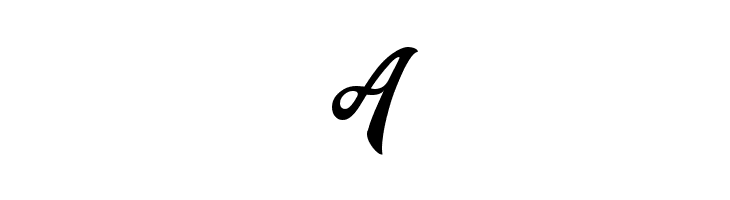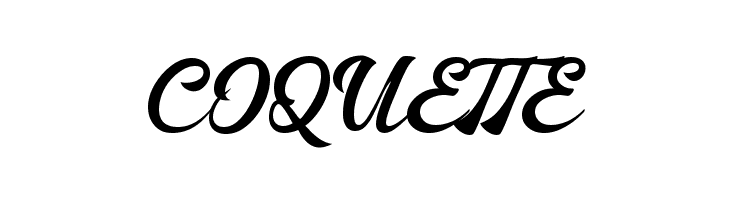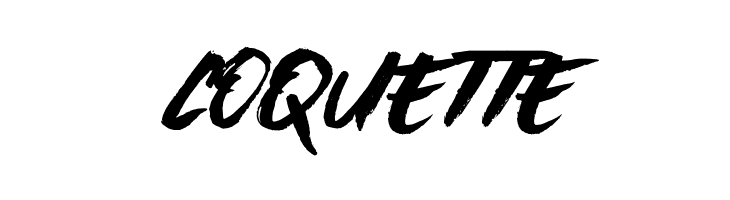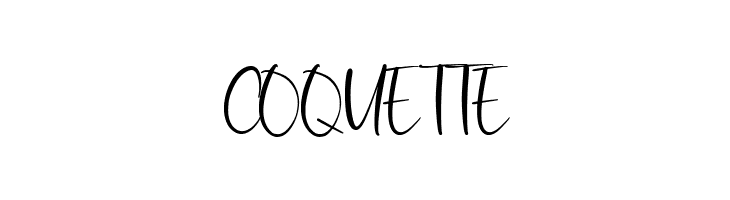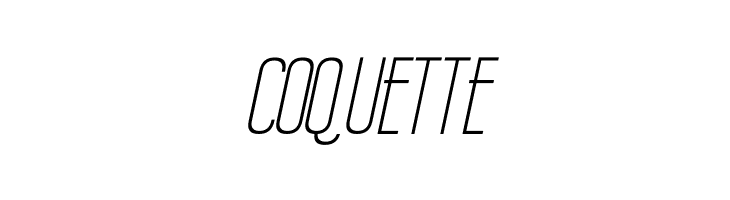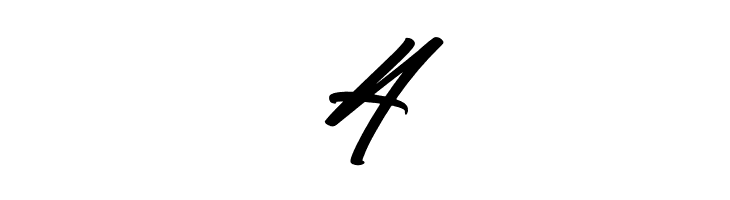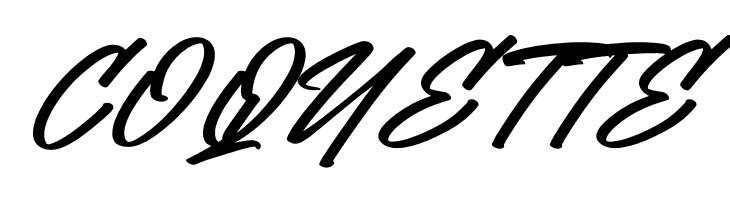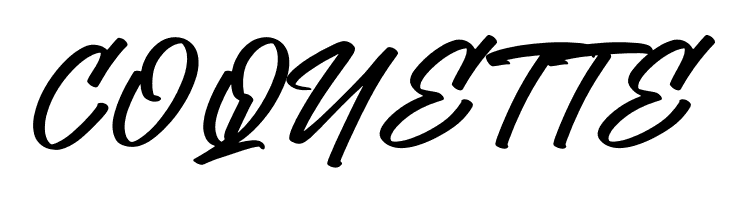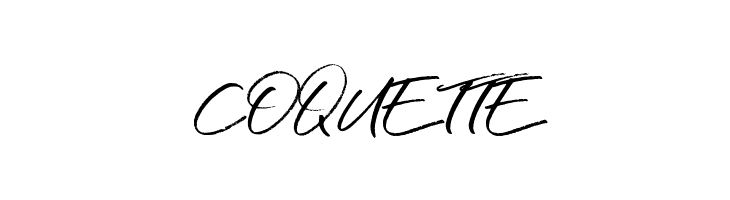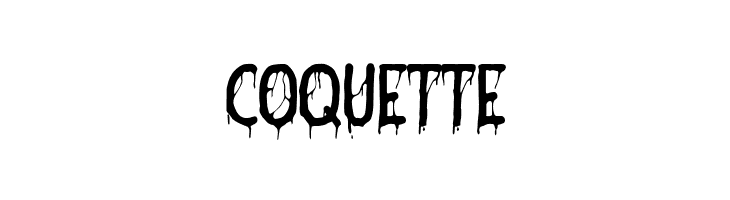
A sleek, italic font with elongated, narrow characters and a modern aesthetic.
A modern, italic, and condensed font with sleek lines and uniform stroke weight.
A versatile font with decorative and bold sans-serif styles.
A lively script font with fluid, interconnected strokes and elegant loops.
A whimsical script font with decorative loops and curls.
Rounded, playful sans-serif with a handwritten touch.
A bold, cursive script font with a dynamic and fluid style.
A decorative font with Western and retro influences, featuring ornate uppercase letters and clean numerals.
A cursive, handwritten-style font with flowing, connected characters.
A bold, slab serif font with a vintage and commanding style.
A whimsical and playful font with smooth, curvaceous letterforms.
A bold, dripping font perfect for spooky and horror-themed designs.
A playful, bold handwritten font with rounded edges and a whimsical style.
Playful handwritten font with a casual style.
A playful, hand-drawn font with rounded edges and a whimsical style.
A bold, decorative font with a vintage, three-dimensional style.
A bold, italic serif font with dynamic slant and strong presence.
Casual handwritten script font.
Bold, playful decorative font with heart and pattern motifs.
A whimsical, cursive font with flowing, artistic strokes.
An elegant script font with graceful curves and sophisticated style.
A bold, textured font with a playful, hand-drawn style.
A dynamic and expressive script font with fluid, sweeping strokes.
A bold, expressive handwritten font with a playful, artistic style.
Hand-drawn decorative font with wildflower motifs.
A fluid and elegant script font with a natural handwriting style.
A bold, italicized cursive script with a dynamic and fluid style.
A graceful, handwritten script font with a luxurious and artistic style.
A bold, flowing script font with elegant curves and interconnected letters.
A bold, brush-style font with dynamic and expressive strokes.
A lively, cursive font with bold strokes and elegant curves.
A dynamic and elegant script font with a modern, italic style.
A bold, expressive brush script font with dynamic strokes and artistic flair.
A delicate, elegant script font with a handwritten style.